Signature Font in Word for Certificates: Brand-Safe Setup + a Better Alternative for Digital Credential Issuance
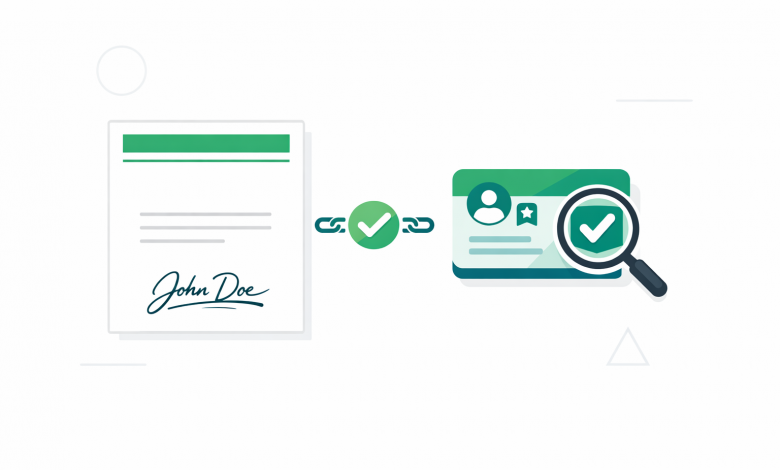
Using a signature font in Word is a common way to make certificates look official and brand-aligned. It can also introduce avoidable issues: inconsistent issuer details, accessibility gaps, and a bigger problem most Word-based certificates can’t solve—verification.
This guide shows how to add a signature-style font in Microsoft Word, use a cursive font in Word responsibly, and reduce certificate errors with a build checklist. It also explains where Word signatures stop being “good enough” and how verifiable digital credentials close the trust gap.
Key takeaways
- A signature font improves presentation, not proof. It does not confirm identity, issuance, or authenticity.
- Keep signatures readable and brand-safe. Script fonts can harm clarity and accessibility if overused.
- Standardize certificate fields. Consistent names, dates, issuer details, and IDs reduce disputes and rework.
- Word signatures are easy to copy. If verification matters, use a verifiable digital credential instead of relying on document visuals.
Why signature styling matters (and what it does NOT prove)
A signature-style font signals formality and can help your certificates match your brand. For admins and coordinators, it’s also a practical shortcut: you can avoid collecting scanned signatures for every template update.
But a signature font is purely visual. It does not prove who issued the certificate, whether the recipient completed requirements, or whether the document was altered after it left your organization.
Definition: A “signature font” is a script-like typeface used to resemble handwriting. It’s different from a digital signature (cryptographic signing), which is designed for integrity and verification.
How to add a signature font in Word (step-by-step)
If you’re producing certificates in Word, the safest approach is to treat signature styling as a controlled design element: standardized font choice, consistent placement, and clear ownership of the template.
Choosing a signature font: readability and brand alignment
- Prioritize legibility at print size. If the name under the signature can’t be read easily, the signature will create more questions than confidence.
- Match brand tone. Formal programs often need restrained scripts; creative programs can use more expressive scripts.
- Avoid “extreme” cursive. Highly decorative loops reduce accessibility and can look unprofessional on some printers.
- Plan for fallback. If the font isn’t installed on another computer, Word will substitute a different font, shifting layout.
Template control tip: If multiple staff members generate certificates, standardize on one shared template owner and a controlled process for font installation. Otherwise, you’ll see formatting drift and inconsistent outputs.
How to use a cursive font in Word without breaking accessibility
Using a cursive font in Word can be accessible when it’s limited to decorative elements and backed by readable text equivalents. Certificates often get printed, emailed as PDFs, and uploaded to systems—so assume your content will be consumed in multiple ways.
- Do not use cursive for critical fields. Recipient name, credential title, and dates should be in a highly readable font.
- Use cursive only for the signature line. Keep the signer’s typed name and title directly below in a standard font.
- Maintain contrast. Avoid light gray script that disappears when printed or scanned.
- Keep spacing stable. Cursive fonts can have unusual baselines; test alignment with the printed name/title beneath.
- Export carefully. When you save/export to PDF, confirm the signature text renders correctly and doesn’t swap to a substitute font.
Common certificate mistakes: inconsistent names, dates, and issuer details
Most certificate disputes and re-issuance requests aren’t about the signature style. They come from inconsistent recordkeeping and template variance across teams.
- Recipient name mismatch: Different spelling than enrollment records; missing middle initials; inconsistent capitalization.
- Date ambiguity: Issue date vs. completion date not labeled; inconsistent date formats across programs.
- Issuer confusion: Department name on the certificate doesn’t match the legal issuer; outdated organizational names.
- Missing signer context: Signature appears without printed name/title, making it hard for third parties to interpret.